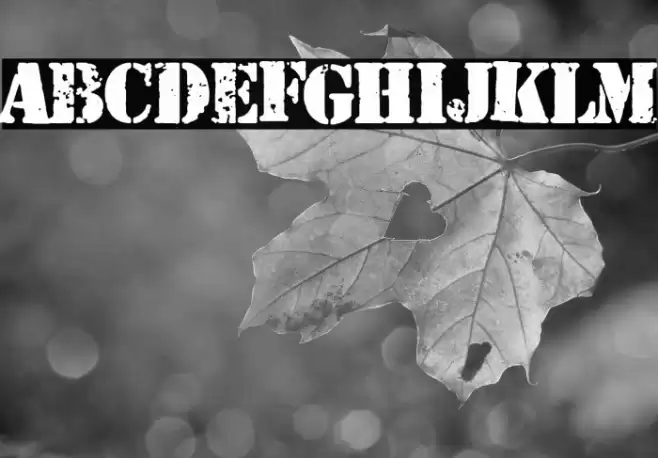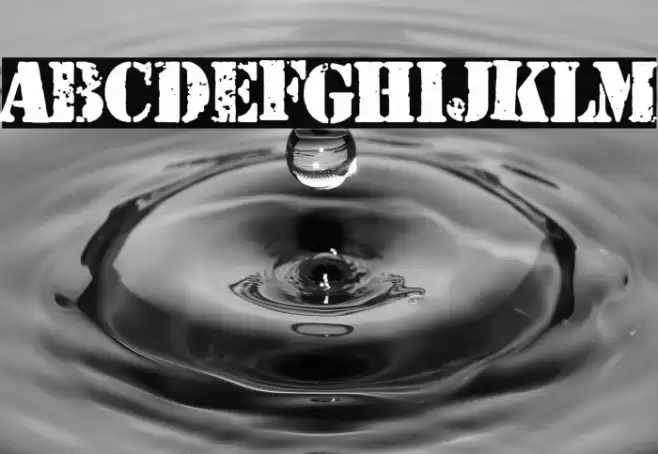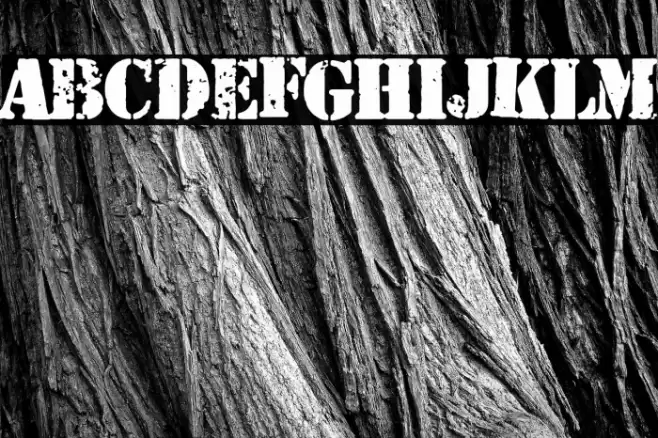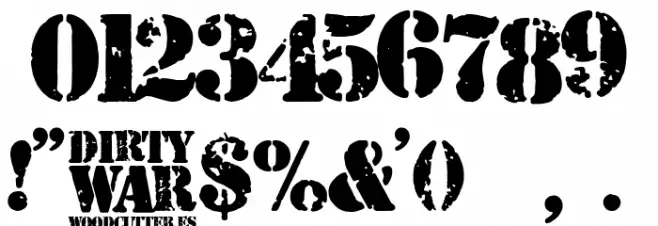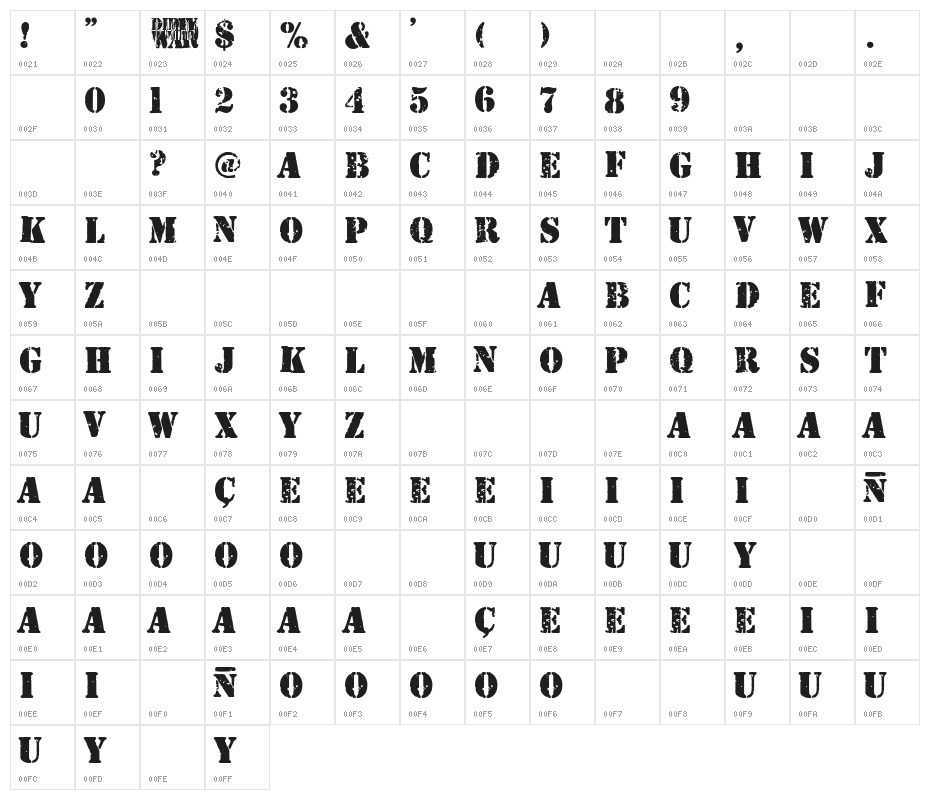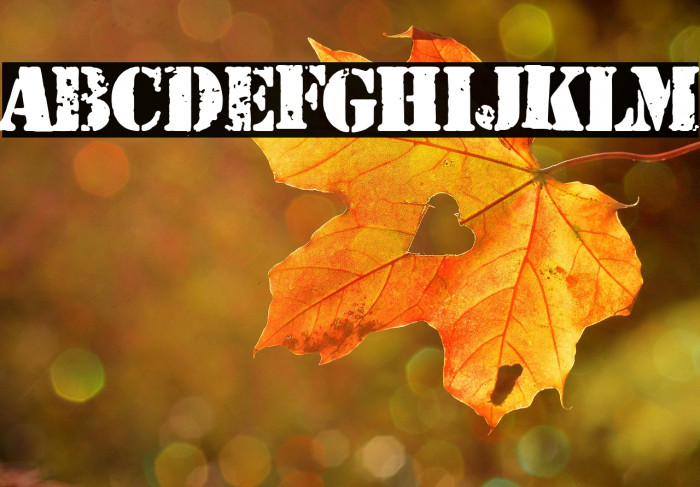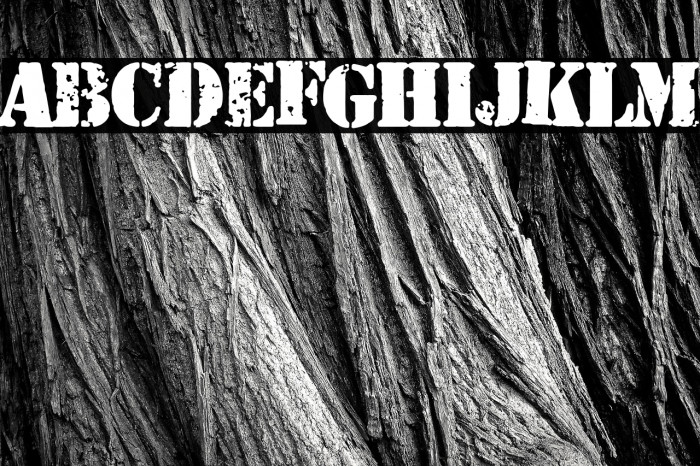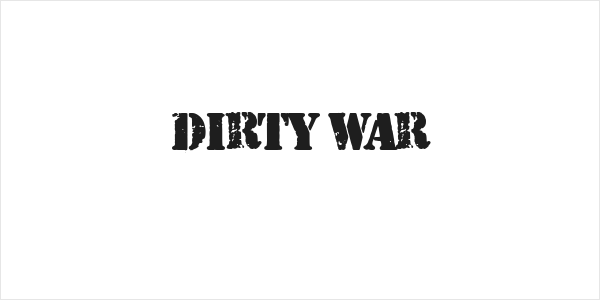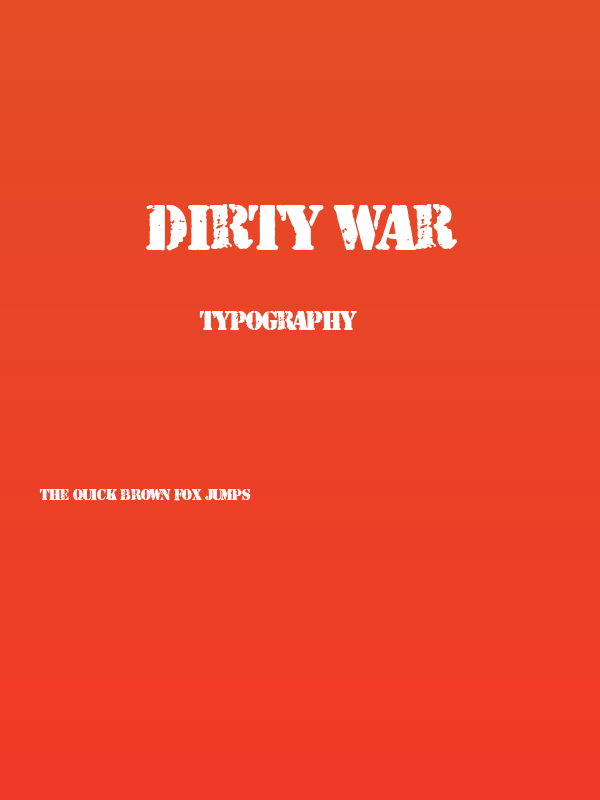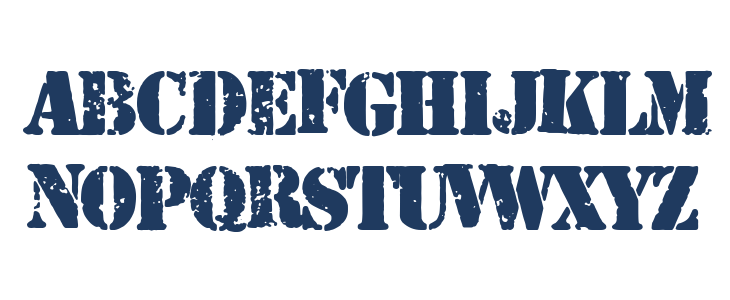
Dirty War Font
Dirty War Description
This font features a bold, distressed style with a rugged, grunge appearance. The characters are heavily textured, giving them a worn and weathered look, reminiscent of vintage military or industrial themes. The uppercase and lowercase letters maintain a consistent boldness, while the numbers and special characters share the same distressed aesthetic. The font's rough edges and uneven texture create a dynamic and eye-catching effect, making it suitable for designs that require a strong, impactful presence.
A bold, distressed font with a rugged, grunge appearance from Uncategorized fonts.
- Font: Dirty War
- Proposed Projects: Ideal for posters, album covers, video game graphics, and any project needing a gritty, industrial vibe.
- Overall Style: Vintage, Grunge